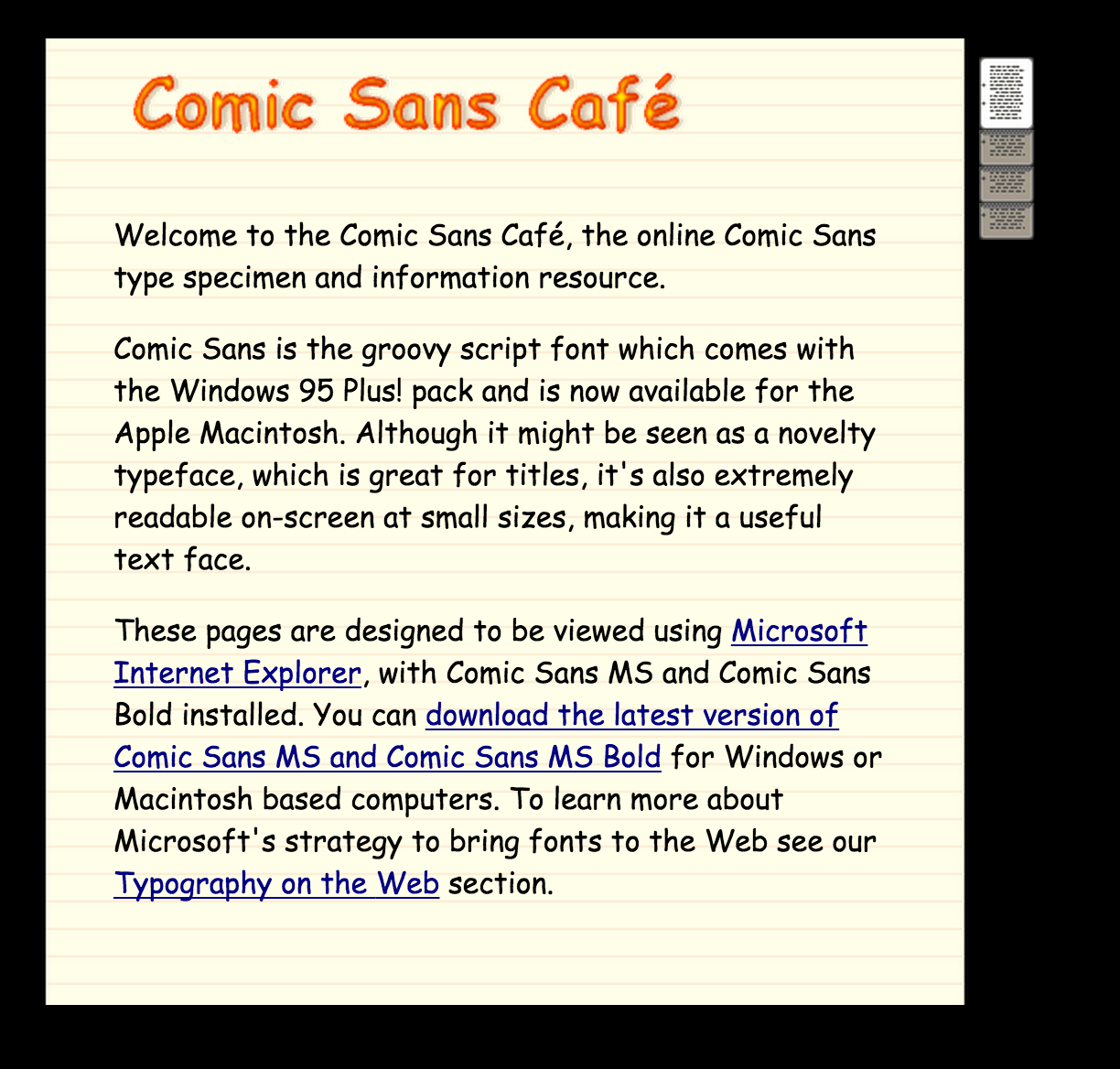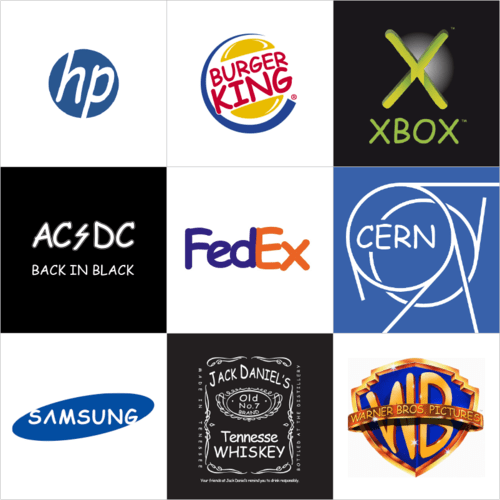
Comic Sans Ms Font Google
Comic Sans Ms Font Google. The least similar font to comic sans on this list, trevor nonetheless retains the same playful spirit of the microsoft font. 100 free fonts alternatives to.
When it comes to the font comic sans, people usually have mixed feelings about it. For today only, we’re inviting a limited number of lucky google users to take part in our google labs trusted tester beta preview sandbox program. Earth view from google earth.
Microsoft 3d movie maker was launched in 1995, with comic sans as the font for the speech bubbles. $ free > personal use. How to adjust default font or line spacing in google docs.
While You May Not Want To Use Comic Sans On Most Text Documents.
It Was Designed For Children, And Comic Sans Was A Perfect Fit.
Available for web use (pay as you go license) purchase the desired number of pageviews. He looked at the print in these comics and decided to adapt their fonts to make comic sans. Go to format > paragraph styles > normal text.
When It Comes To The Font Comic Sans, People Usually Have Mixed Feelings About It.
On this page you can download the font comic sans ms version 2.10, which belongs to the family comic sans ms (regular tracing). Comic sans is available on 99.13% of windows computers and 90.91% of macs, however only an estimated 60% of linux users have comic sans installed. There must be quotes in the document.
Si arrived at microsoft as an intern the summer of ’95, joining greg and vinnie on the small but mighty team that designed comic sans and brought more font options to the early web. Comic sans ms is the groovy script font which was first supplied with the windows 95 plus! You’ll come to believe it is not professional at all to use the font.